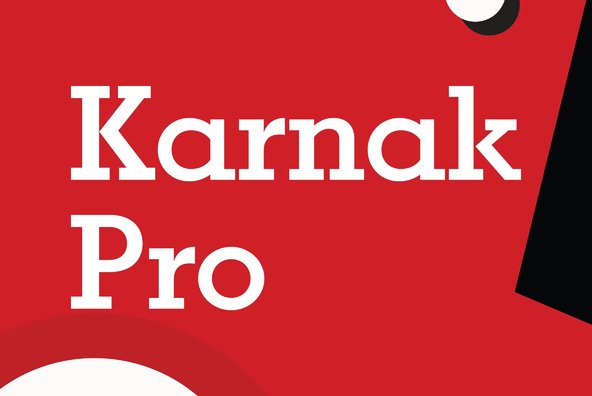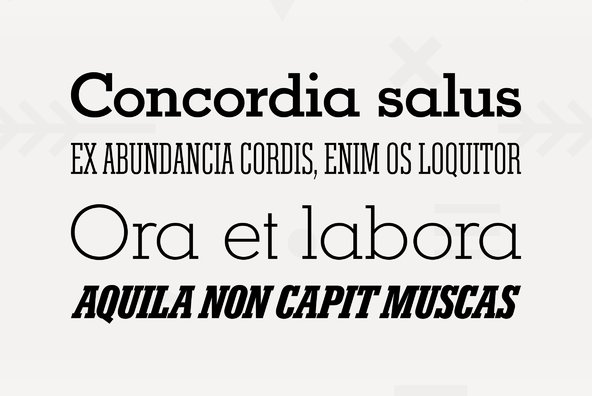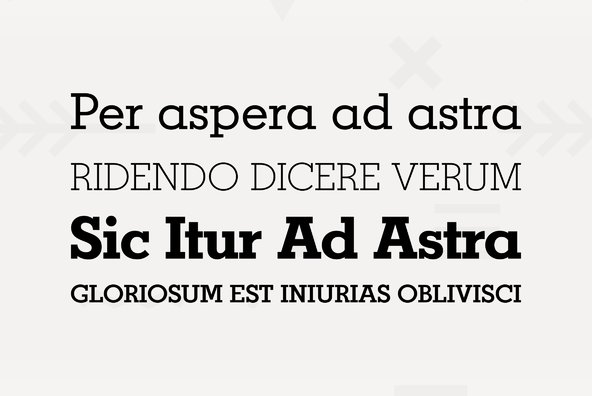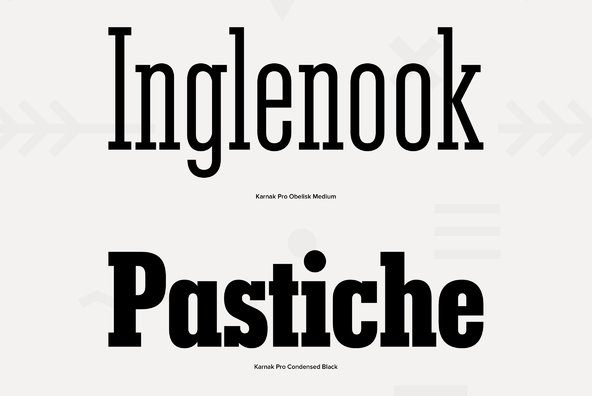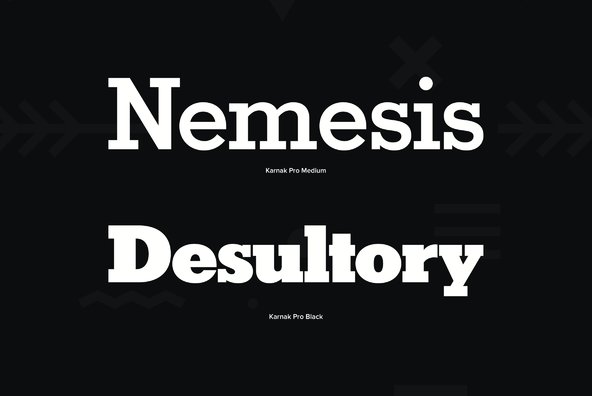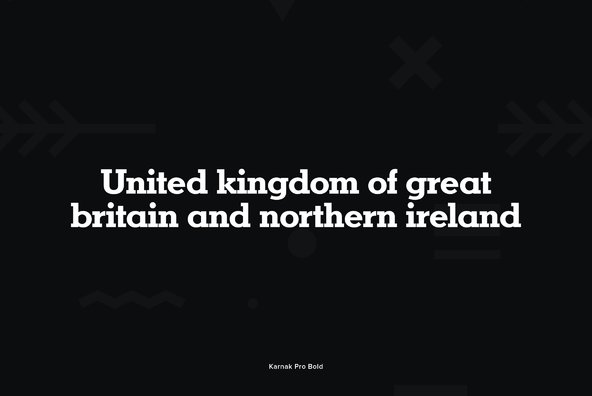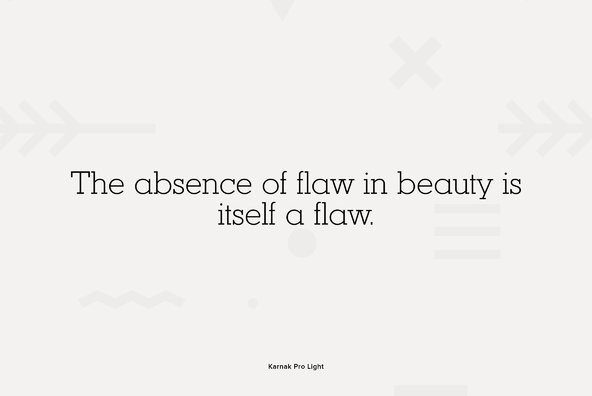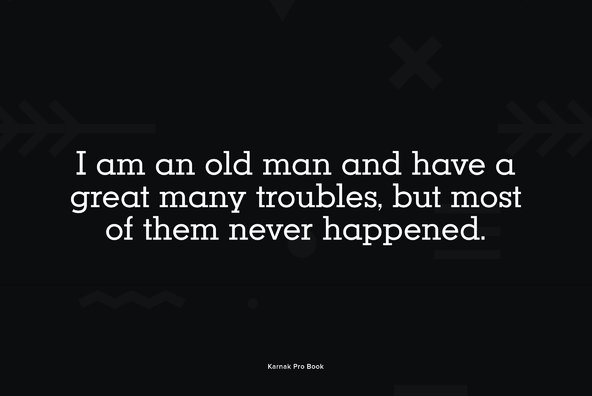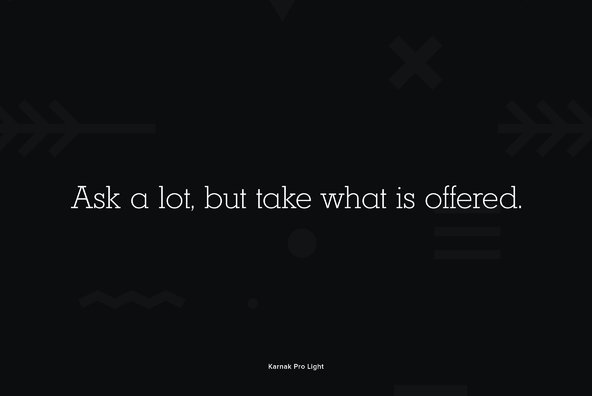
Karnak Pro
Based on the original design by Robert Hunter Middleton. We completely redesigned the italic weights of Karnak, because the original versions just did not look right. For good measure, we decided that the family also needed a bold weight. Digitally engineered by Steve Jackaman and Ashley Muir from the Ludlow drawings, circa 1931-1942.